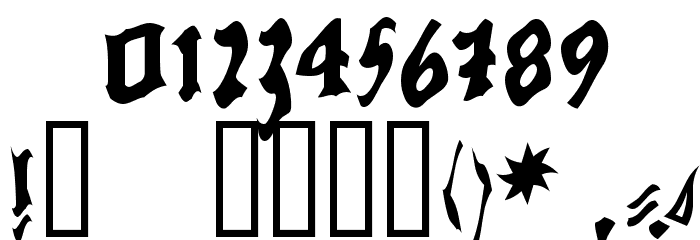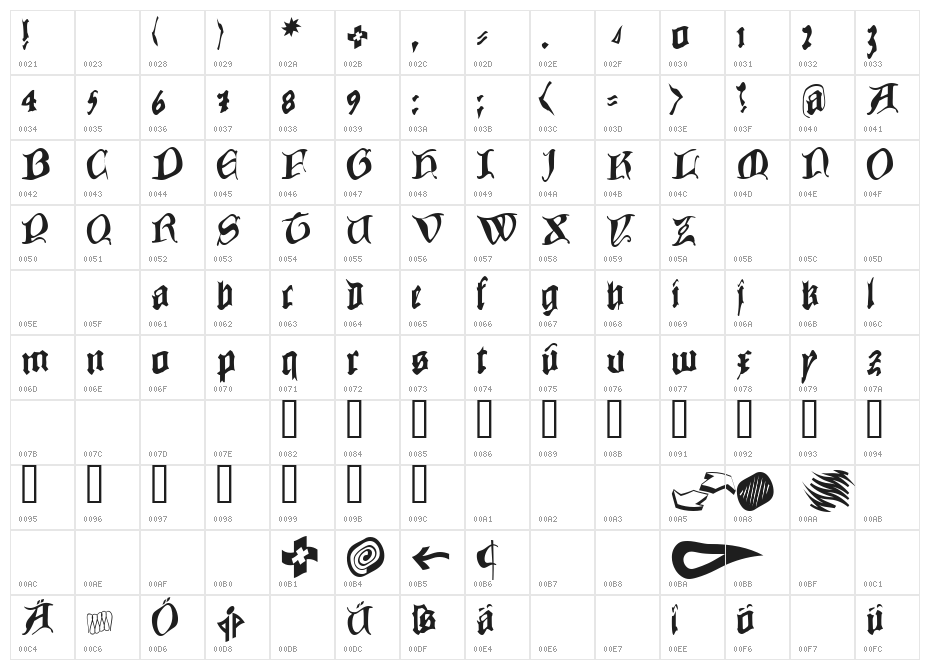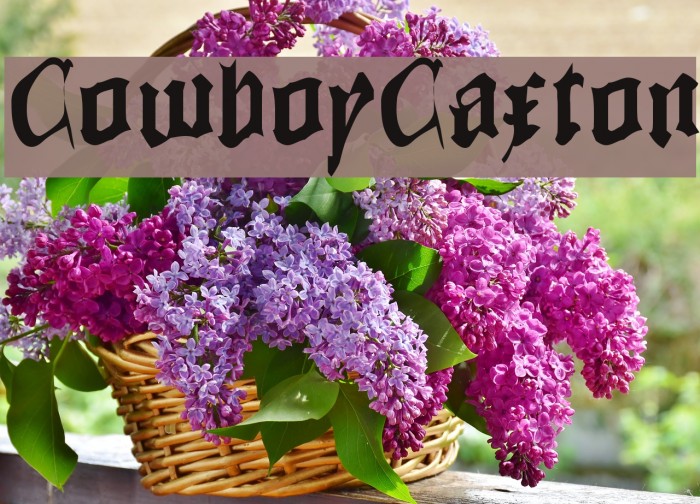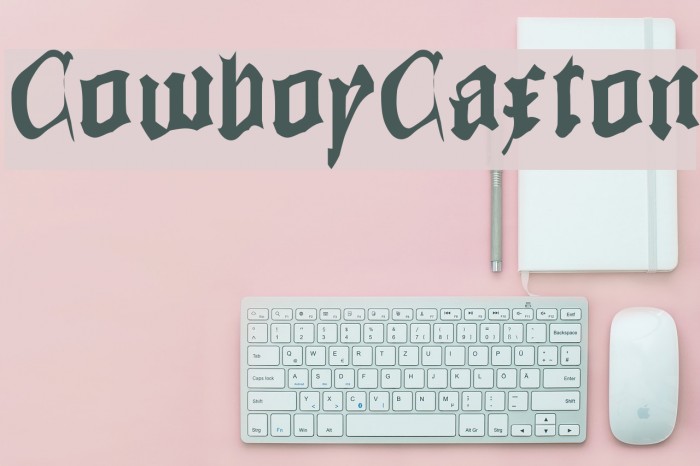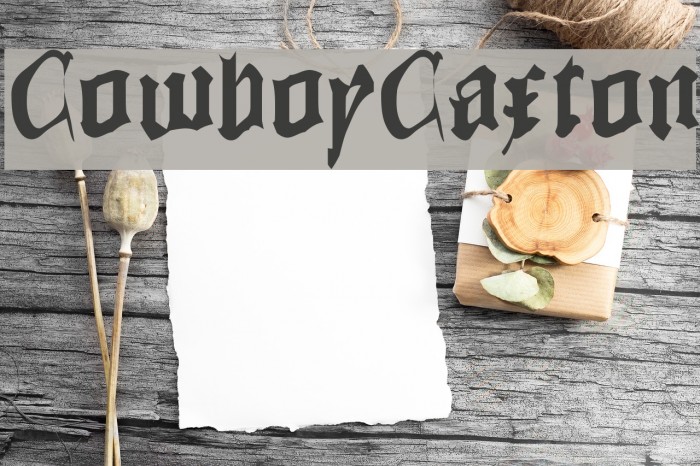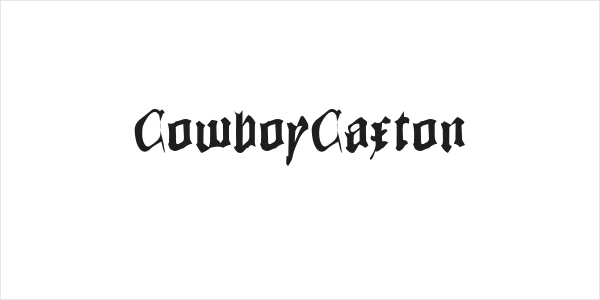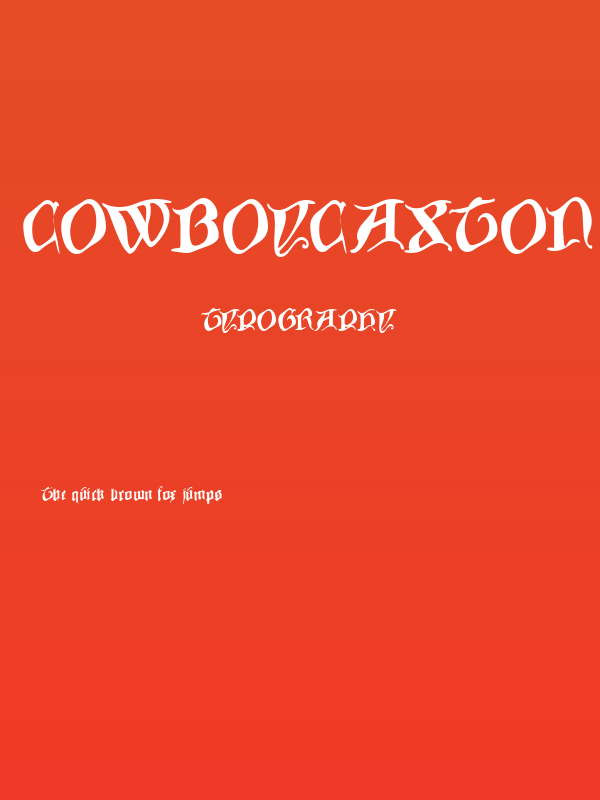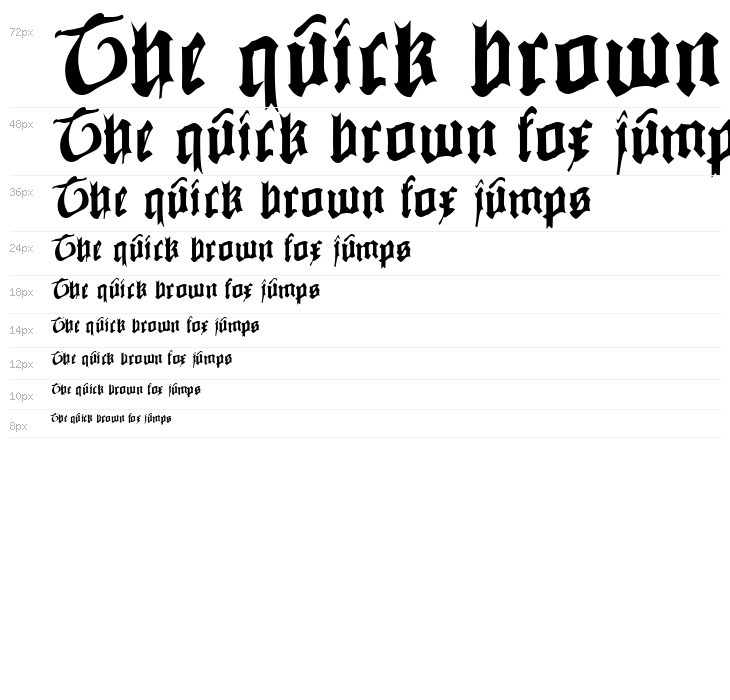
CowboyCaxton Font
CowboyCaxton Description
This font features a bold and dramatic style reminiscent of traditional Blackletter typefaces. The characters are intricately designed with sharp, angular lines and elaborate flourishes, giving it a distinctly medieval and gothic appearance. The uppercase letters are particularly ornate, with exaggerated serifs and decorative elements that enhance their visual impact. The lowercase letters maintain the same aesthetic, though they are slightly more subdued in their embellishments. Numbers and special characters are consistent with the overall style, ensuring a cohesive look across all text elements. This font is ideal for projects that require a historical or vintage touch, such as themed posters, book covers, or branding for products that wish to evoke a sense of tradition and craftsmanship.
| Use Case | Headlines, Logos, Decorative text |
| Proposed Projects | Ideal for historical-themed posters, book covers, vintage branding, and decorative signage. |